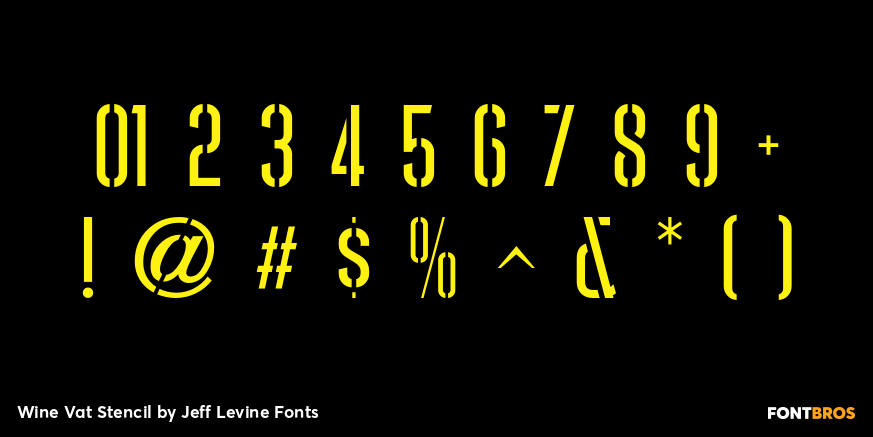
Wine Vat Stencil
Buy NowAn image of a vintage metal stencil for the French wine region Côteaux du Tricastin [now Grignan-Les Adhemar] served as the inspiration for Wine Vat Stencil JNL.
This condensed sans serif design is available in both regular and oblique versions.